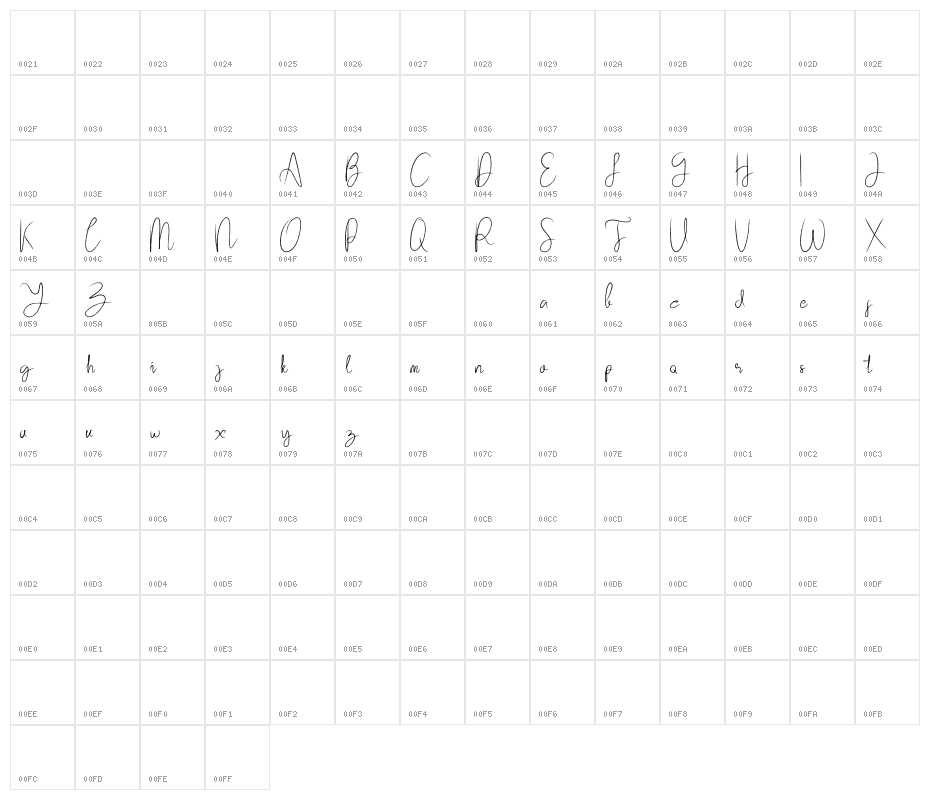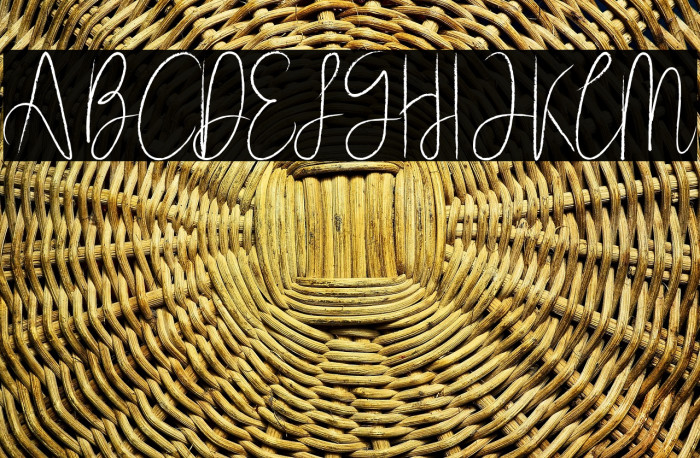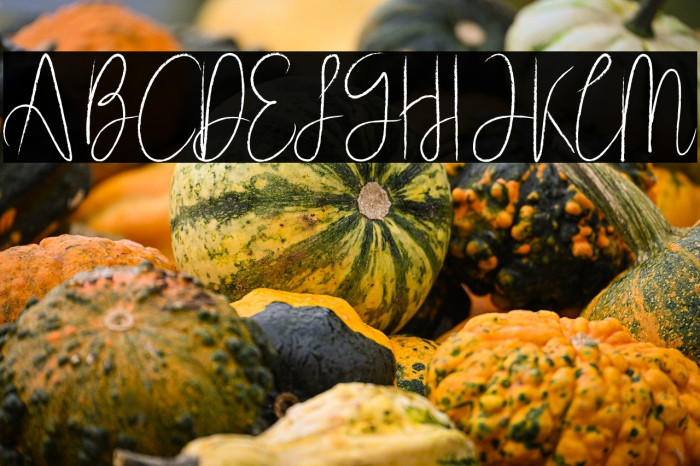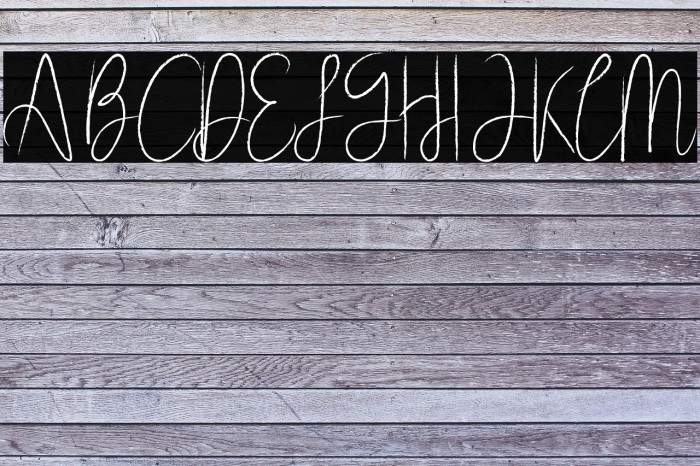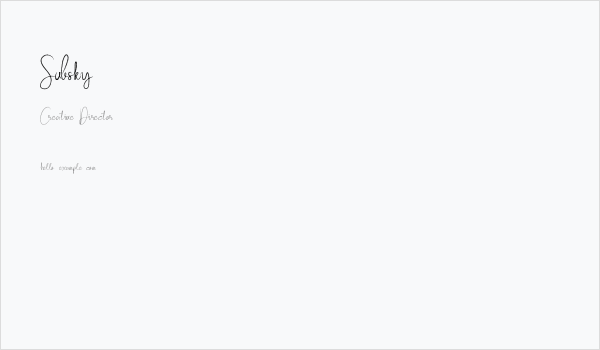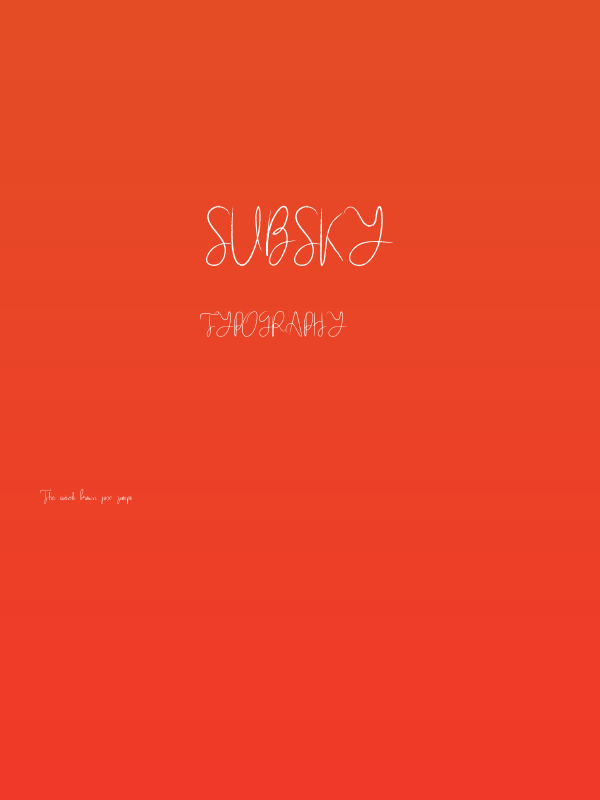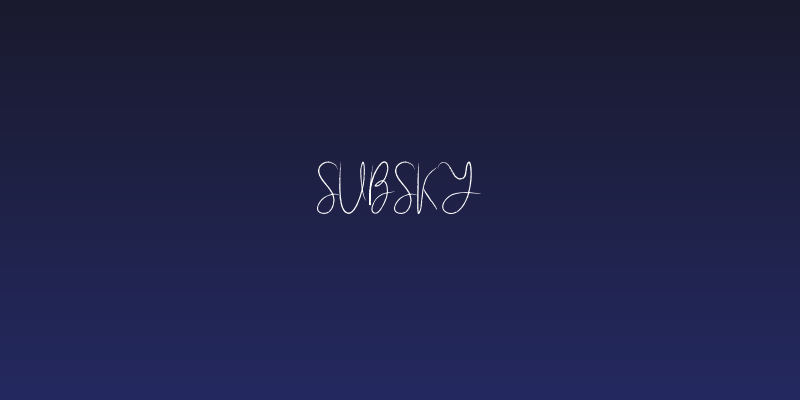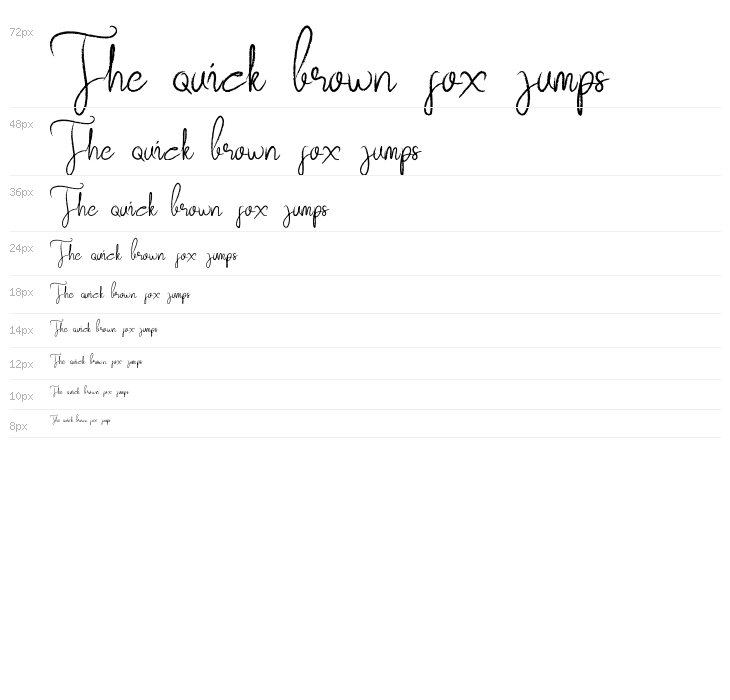
Subsky Font
Subsky Description
This font features a whimsical and artistic handwritten style, characterized by its flowing and interconnected letters. The uppercase letters are tall and slender, with elegant loops and curves that give a sense of movement and fluidity. The lowercase letters maintain a similar style, with some letters extending below the baseline, adding to the playful nature of the font. The strokes vary in thickness, providing a dynamic contrast that enhances the overall visual appeal. This font is perfect for projects that require a personal and creative touch, such as invitations, greeting cards, or artistic branding.
| Proposed Projects | Ideal for invitations, greeting cards, artistic branding, and creative projects. |